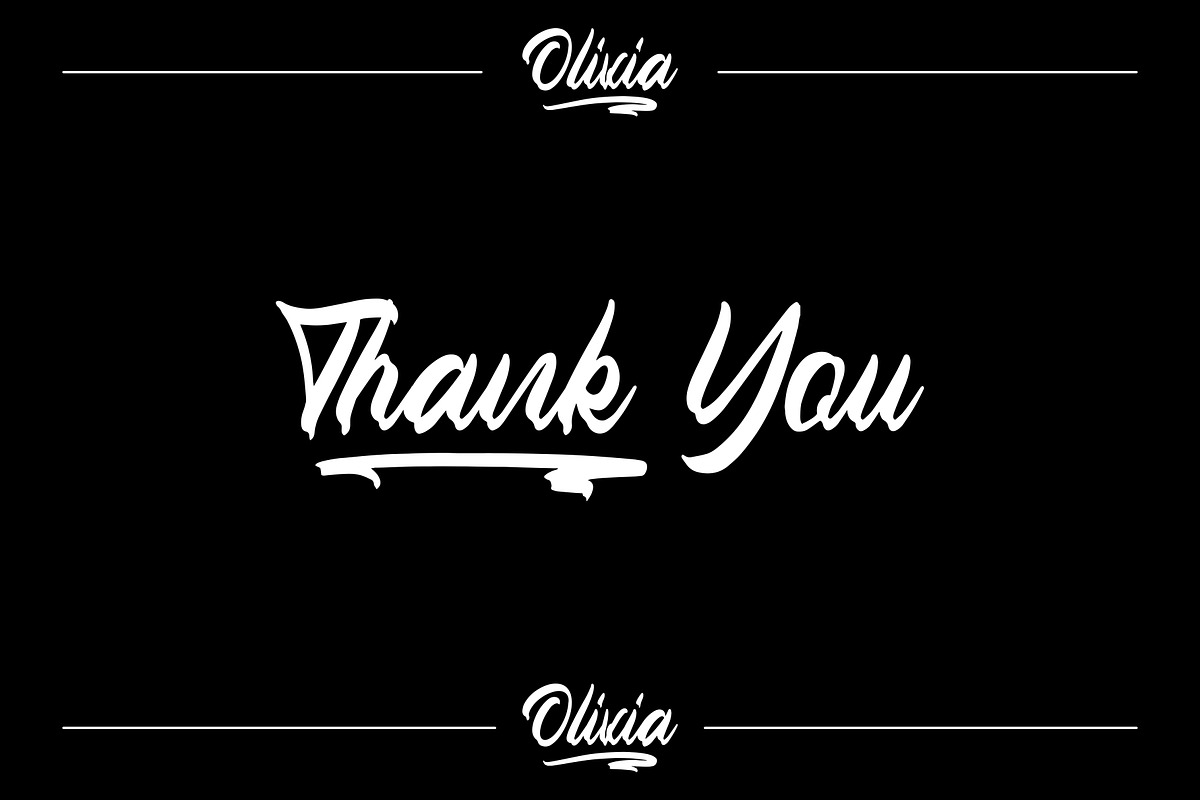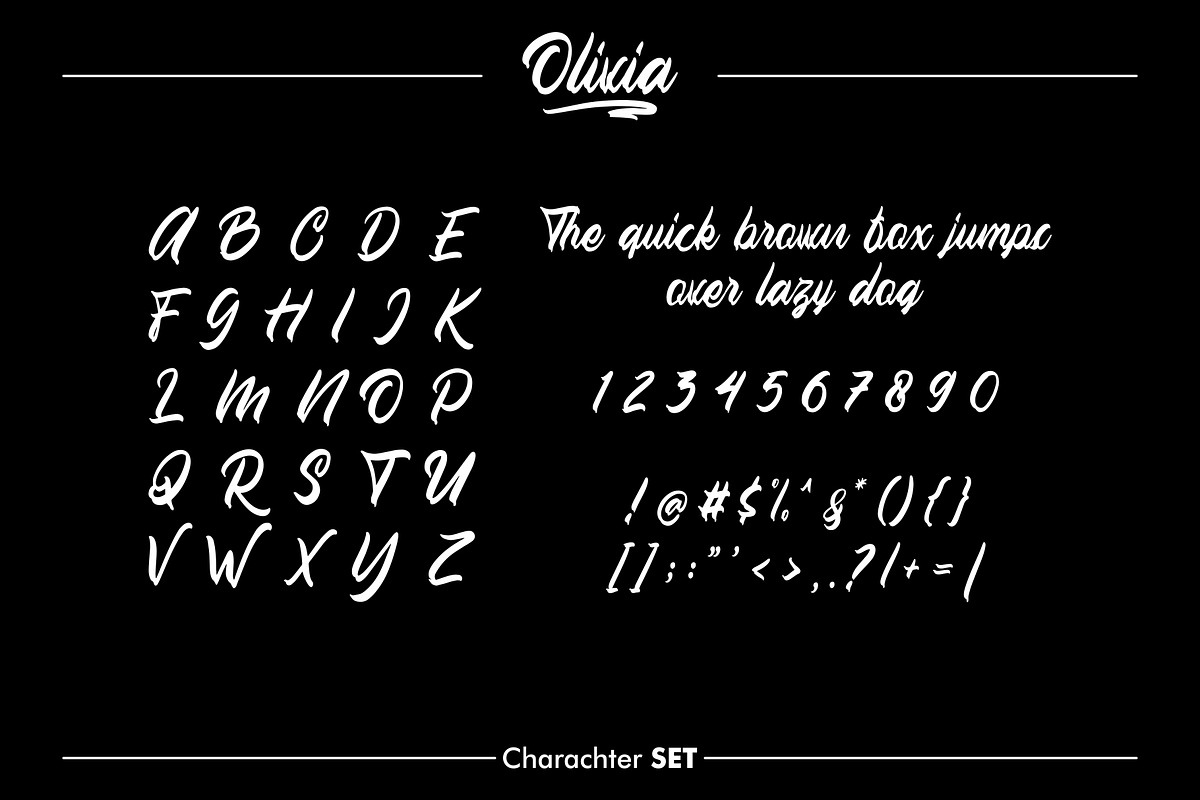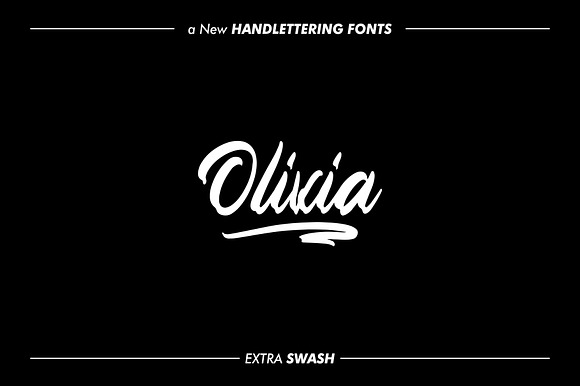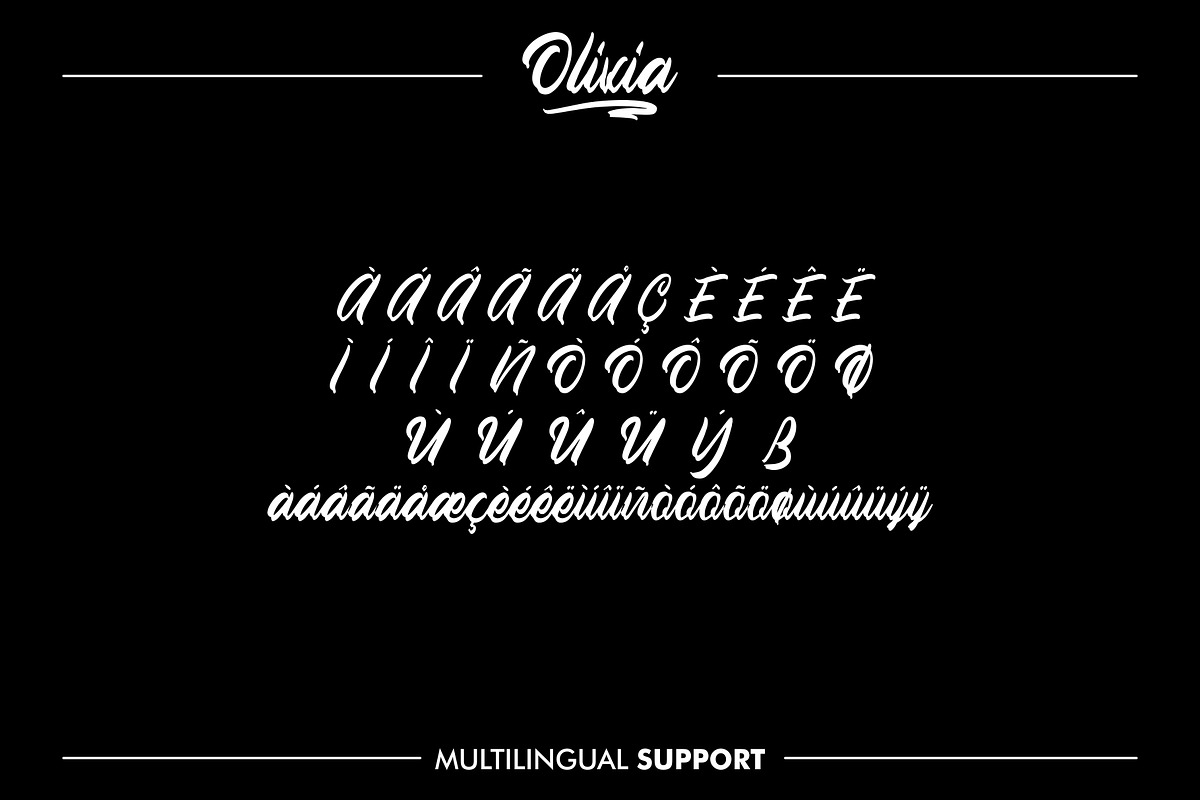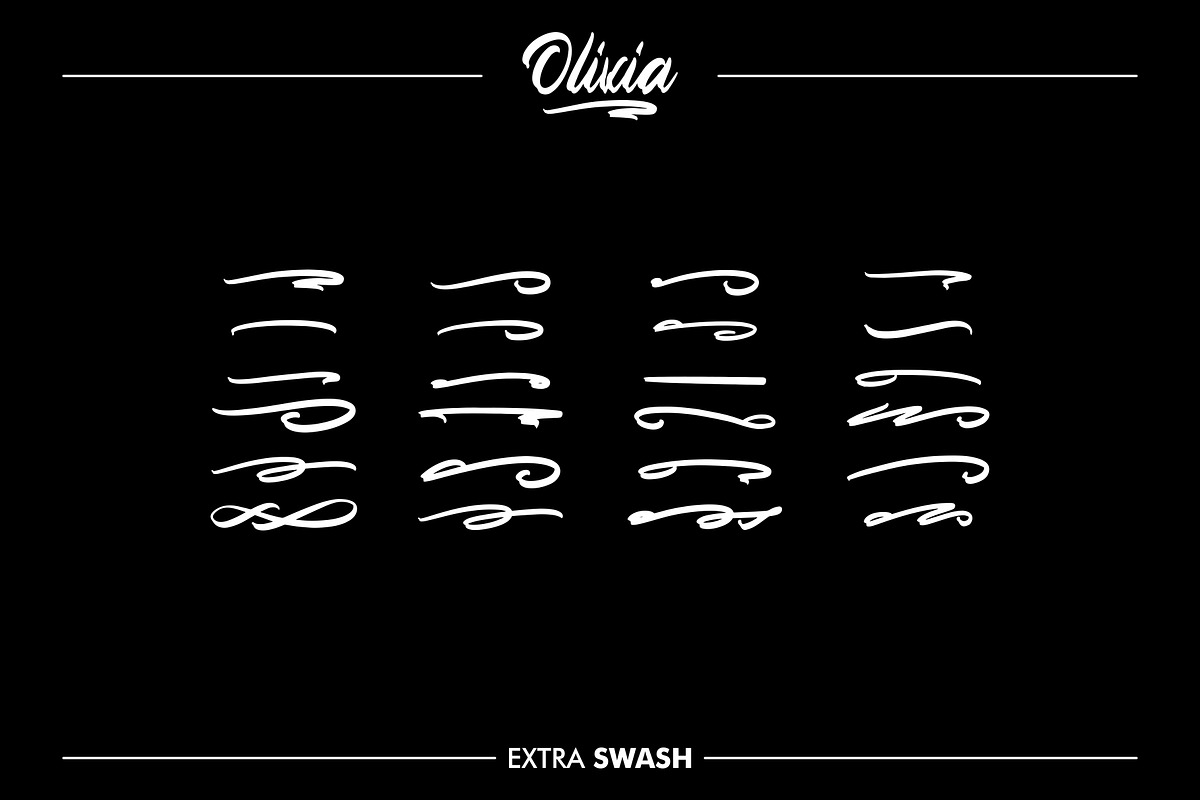
OLIVIA - Handlettering Fonts
Olivia font based from handlettering sketch. It also comes with a clean and aged style each font. The classic feel is really perfect for you who needs a typeface for especially logotype, apparel, invitation, branding, packaging, advertising etc. This typeface is comes in uppercase, lowercase, punctuations, symbols & numerals and PUA encoded is already
EXTRAS 52 BEAUTIFULLY SWASH
Very great for branding, logotype or handlettering
Multilingual Support: ÀÁÂÃÄÅÇÈÉÊËÌÍÎÏÑÒÓÔÕÖØÙÚÛÜÝßàáâãäåæçèéêëìíîïñòóôõöøùúûüýÿ
- It also comes with a clean and aged style each font.
- Olivia Regular
- Olivia Swash Regular